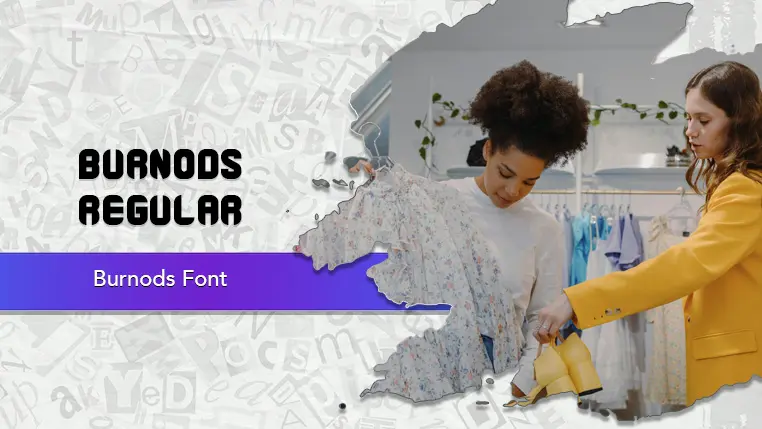
The Burnods font family may be ideal for you if you enjoy working on an artistic design project. The lively, expressive look of this typeface, which was created by NuType, makes it ideal for Apparel, Merchandise, Logos and Branding. ts eye-catching style is perfect for creating engaging and memorable headlines and quotes for platforms like Instagram, Pinterest, and Facebook. t's a great choice for adding a personal and elegant touch to wedding invitations, greeting cards, and event announcements. and other light-hearted visual projects.
Regular are the one primary font styles of the Burnods font family. You may build dynamic, visually appealing text layouts with the distinct flair that each style offers. With crisp, readable lines and a relaxed tone.